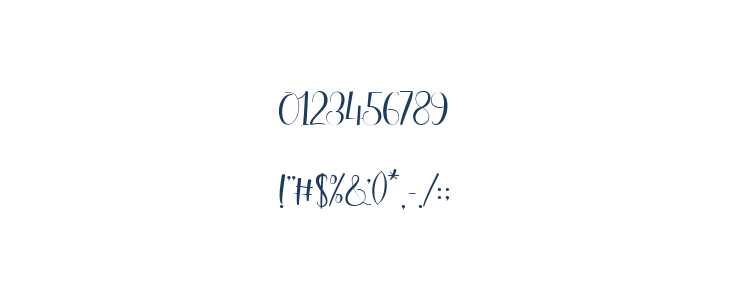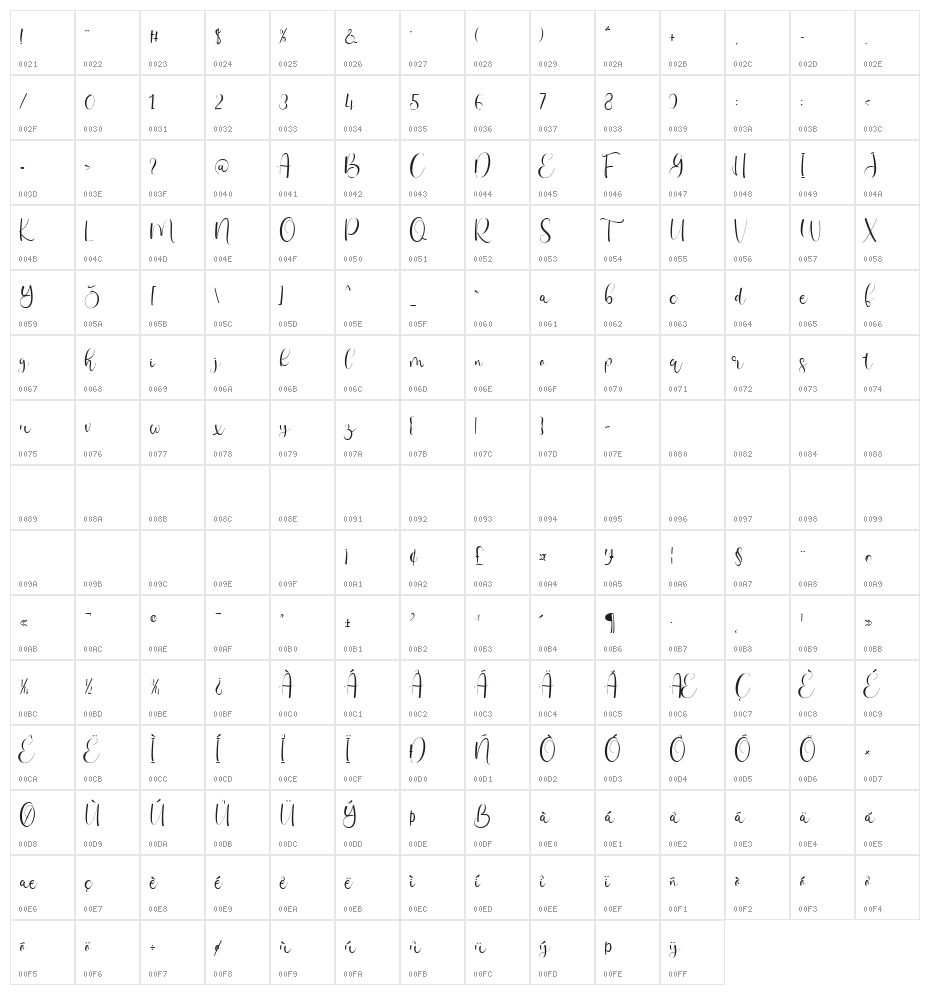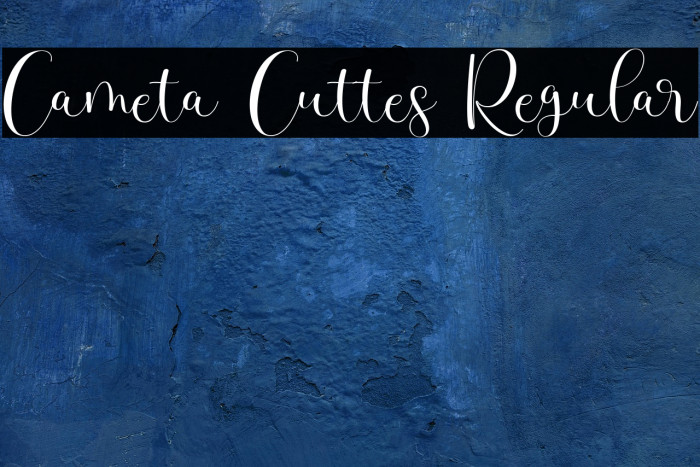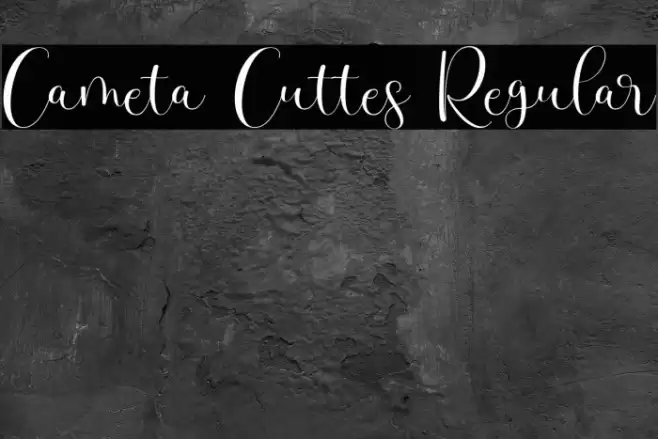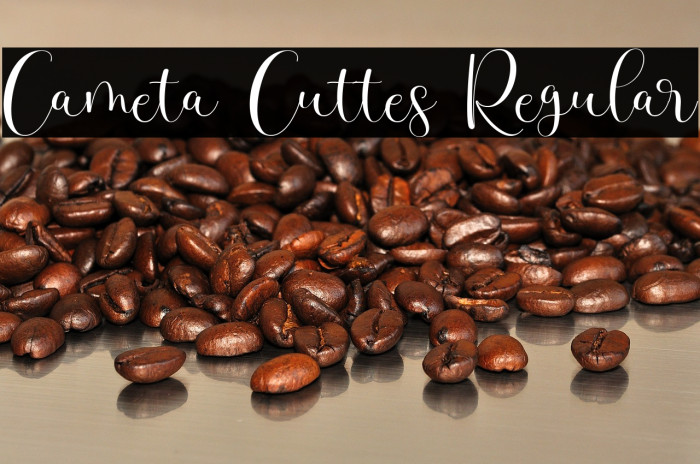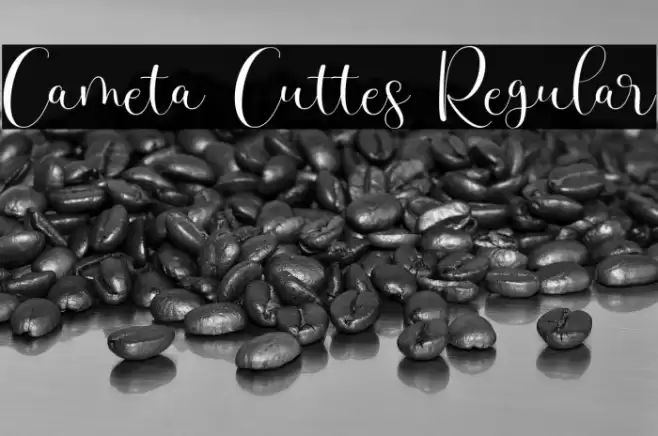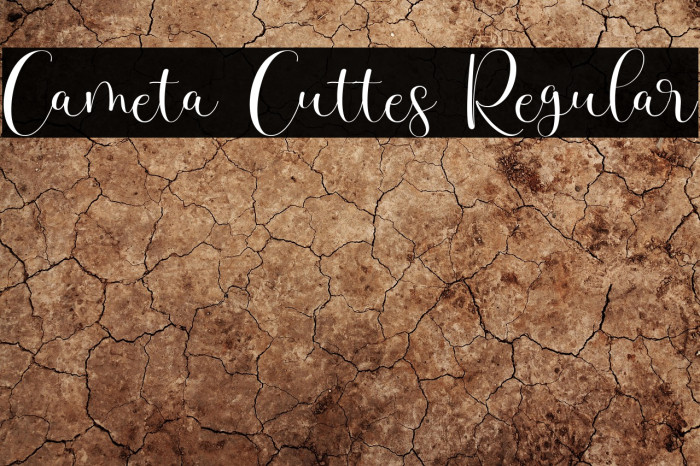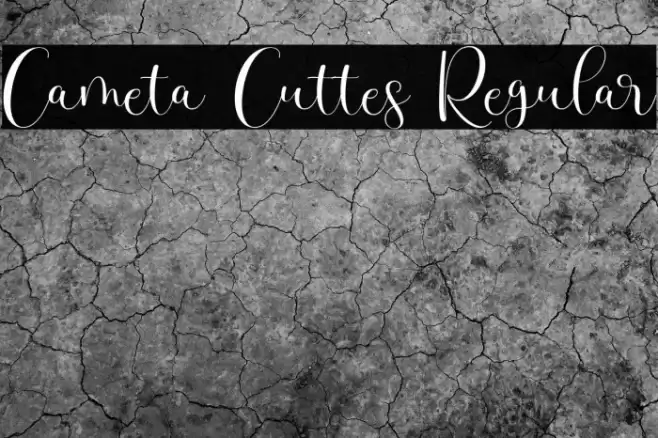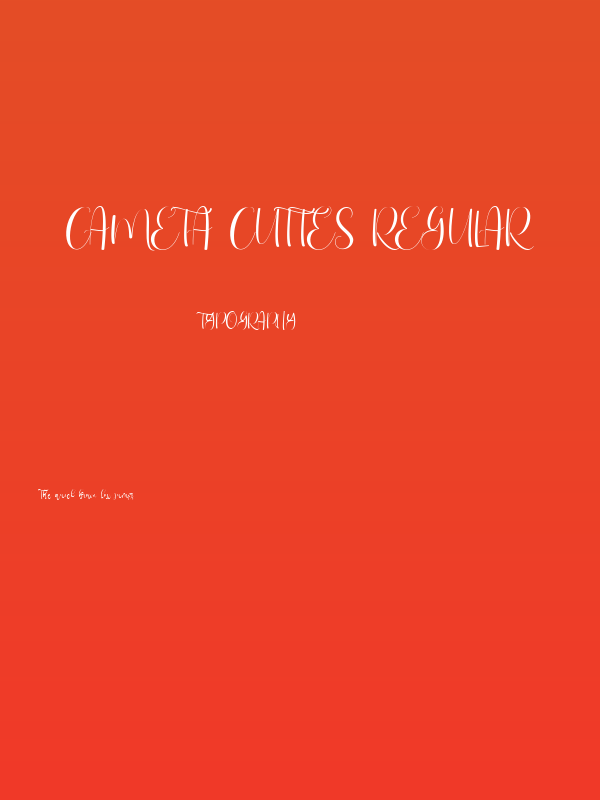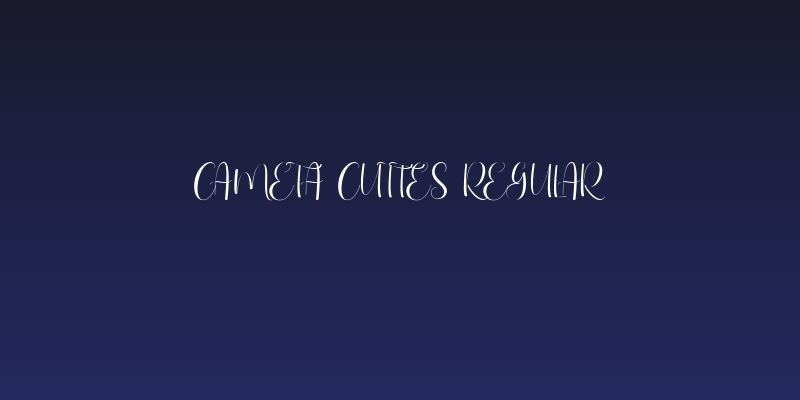
Cameta Cuttes Regular Font
Cameta Cuttes Regular Description
This font features an elegant and flowing script style, characterized by its graceful curves and loops. The uppercase letters are bold and expressive, with a distinct flair that adds a touch of sophistication. The lowercase letters maintain a consistent flow, enhancing readability while retaining the decorative essence. Numbers are styled to match the overall aesthetic, ensuring a cohesive look. Special characters are thoughtfully designed, complementing the font's artistic nature. This font is perfect for projects that require a touch of elegance and creativity, such as invitations, branding, and decorative headlines.